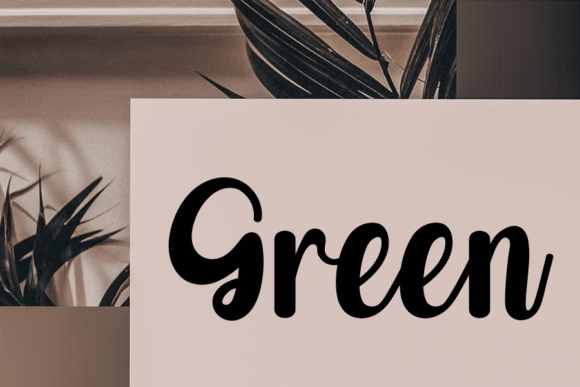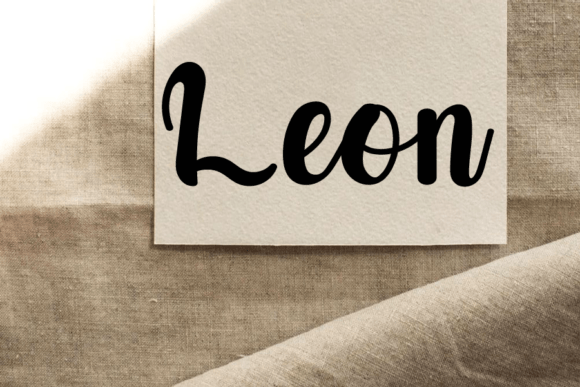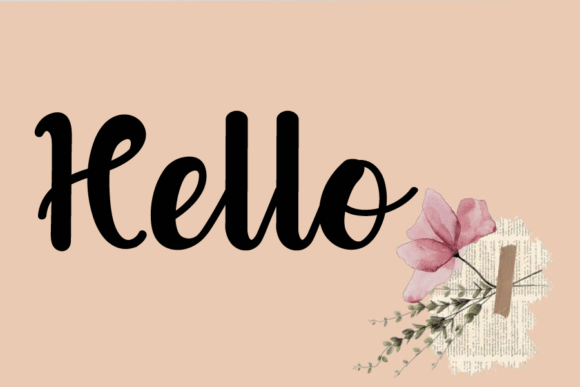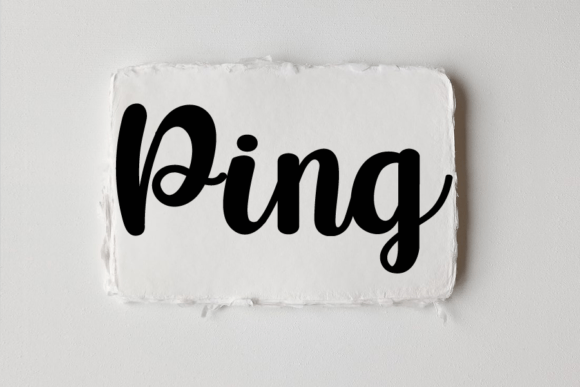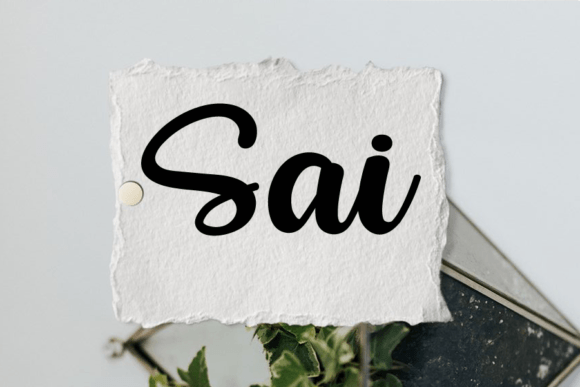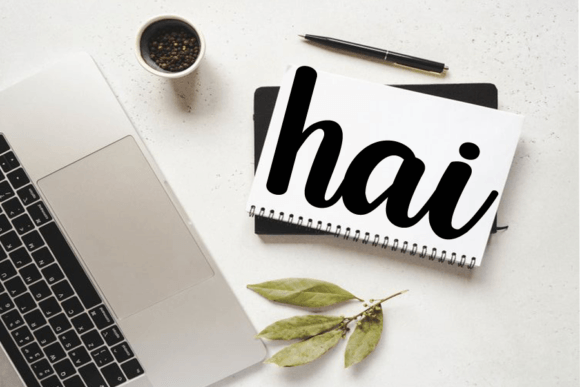
Rathi Font
About Rathi Font
**Rathi** is a lovely and timeless handwritten font that exudes beauty and charm. This font is the perfect choice for creating eye-catching logos, branding materials, and quotes that leave a lasting impression. With its unique and beautiful letterforms, Rathi has the power to infuse your designs with life and elegance.
One of the standout qualities of Rathi is its timeless and handcrafted appeal. Each letter is thoughtfully designed to be unique and beautiful, adding a touch of artistry to your text. This makes it an ideal choice for projects where you want to convey a sense of beauty and individuality.
For logos and branding, Rathi brings a distinctive and memorable quality to your brand identity. Its elegant and timeless style ensures that your brand stands out and is remembered by your target audience.
Quotes take on a new level of impact when presented in Rathi. Whether you’re designing inspirational graphics, quote posters, or social media content, this font enhances the beauty and emotional resonance of your message.
In summary, Rathi is a lovely and timeless handwritten font that adds a touch of beauty and elegance to your designs. Its versatility and unique character make it a wonderful choice for creating eye-catching logos, branding materials, and quotes that come alive with style and sophistication. Embrace Rathi to infuse your creative work with a timeless and artistic touch.